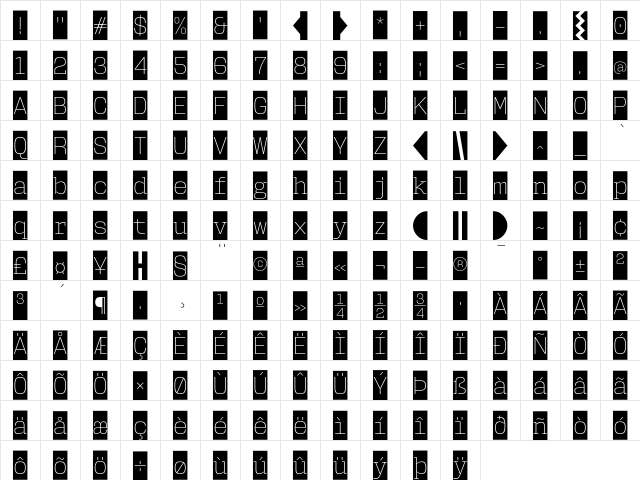
User ExtraLight Cameo Free Font
User ExtraLight Cameo
Style: ExtraLight Cameo
Foundry: DSType Foundry
Designer: Pedro Leal
Design Context for User
User is a composed and adaptable typeface that performs quietly and consistently across a wide range of design contexts. Its slender proportions lend an understated elegance to any composition.